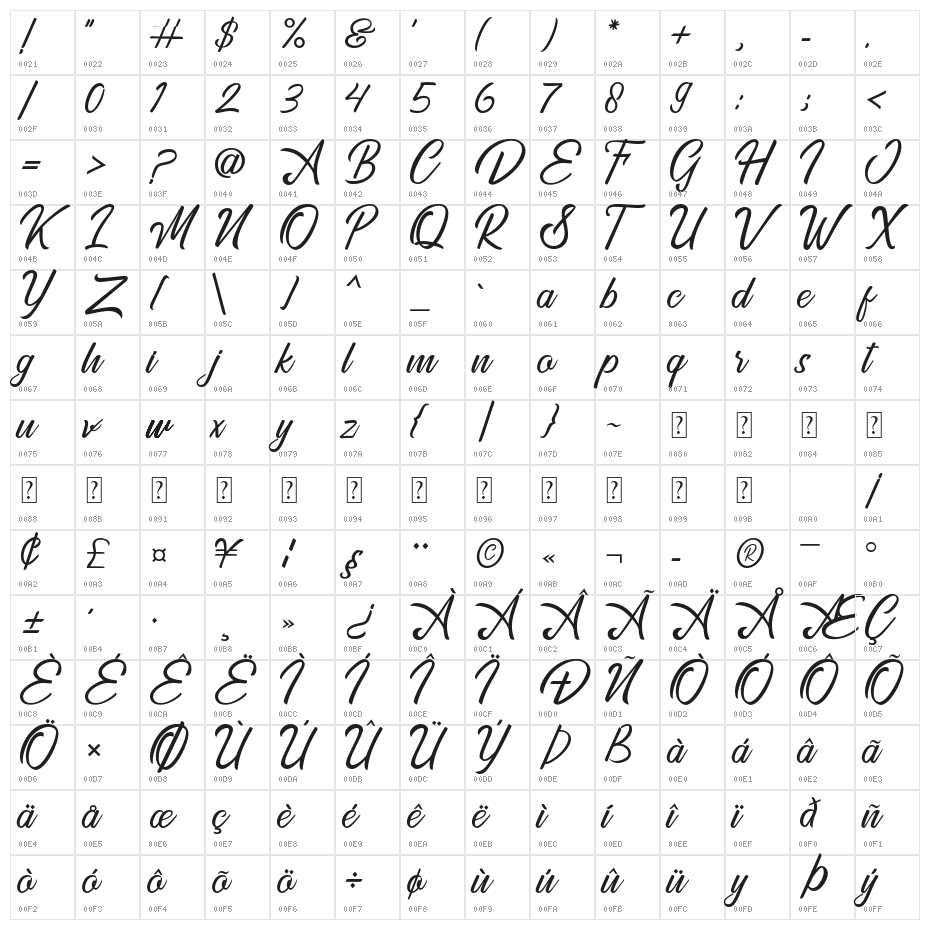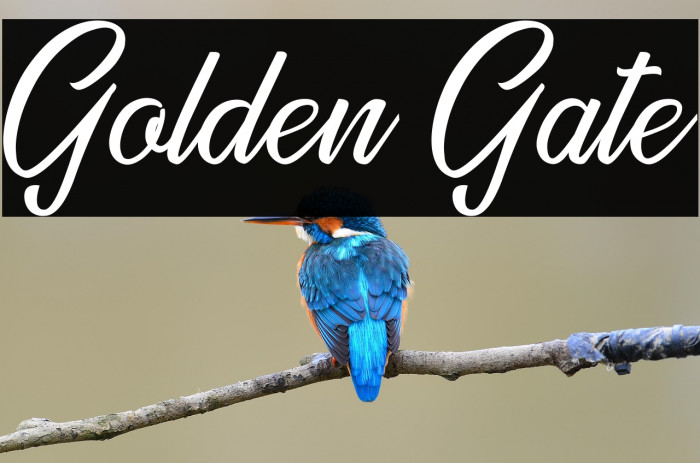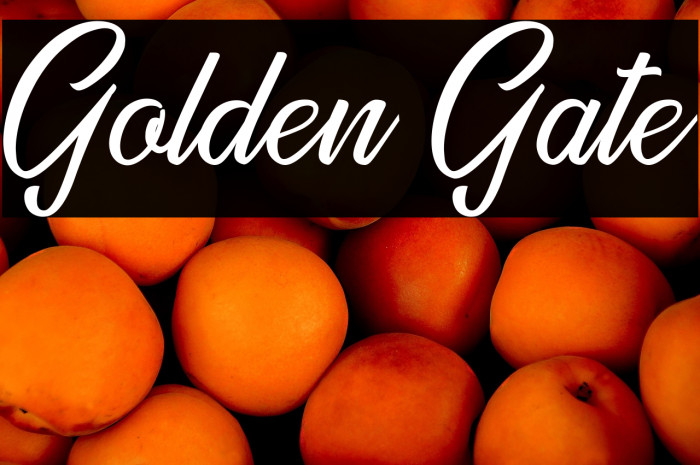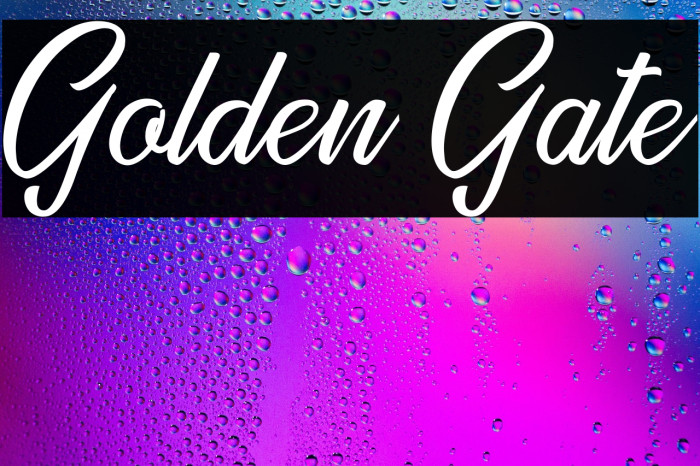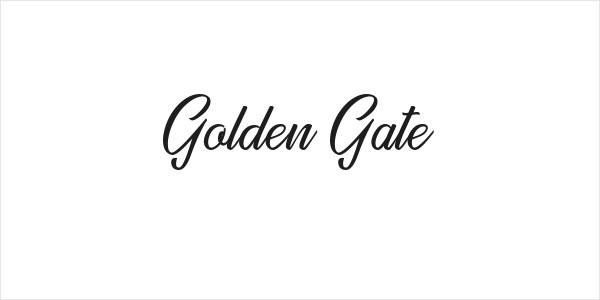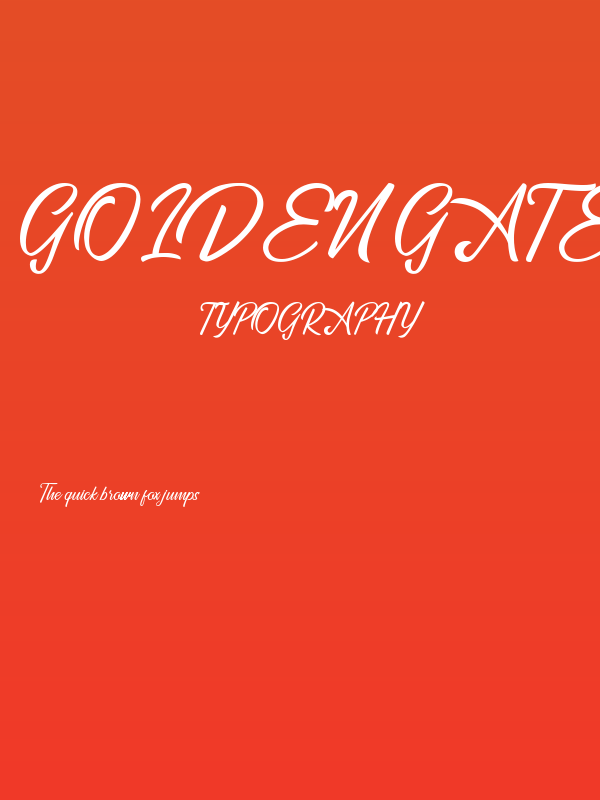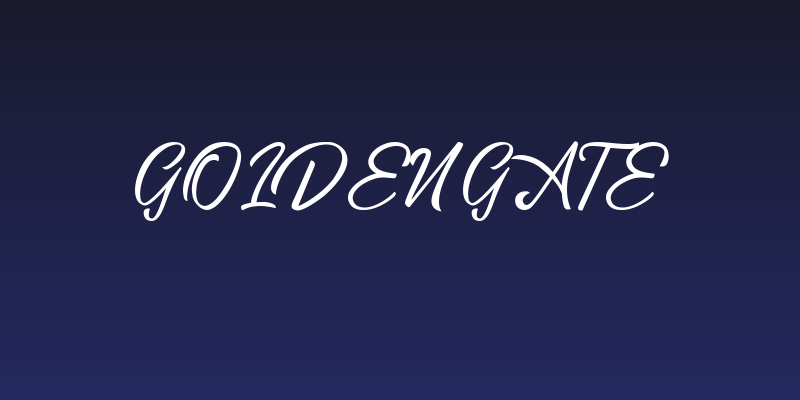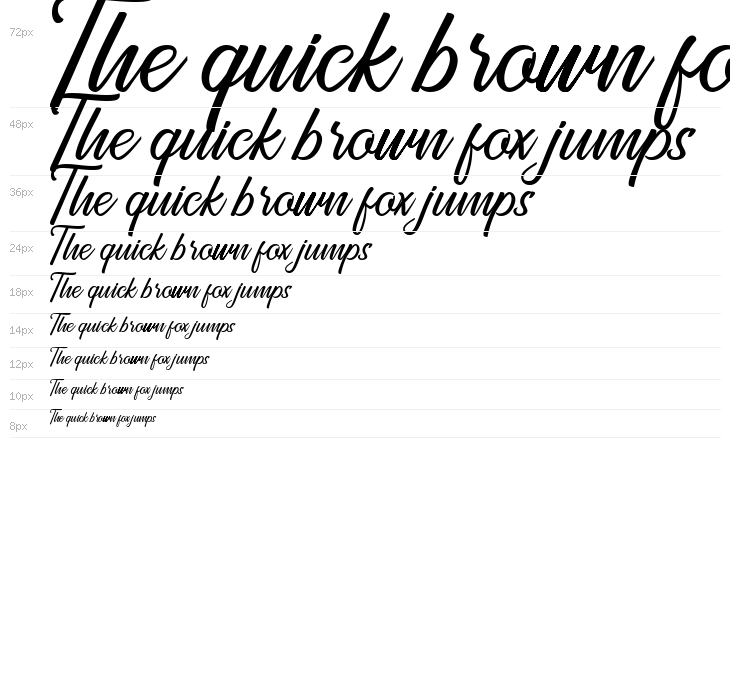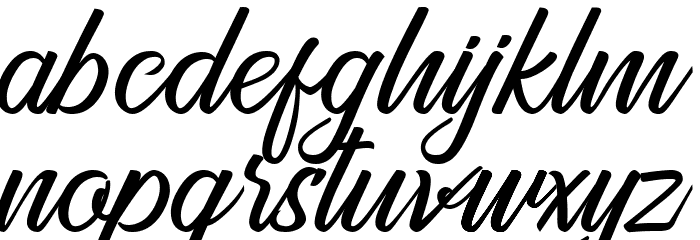
Golden Gate Font
Golden Gate Description
This font features an elegant, flowing script style that mimics the fluidity of cursive handwriting. The characters are connected, creating a seamless and continuous appearance. The uppercase letters are tall and slightly slanted, while the lowercase letters maintain a consistent height, enhancing readability. The numerals and special characters are designed to match the overall script style, with smooth curves and a harmonious flow. This font exudes a sense of sophistication and grace, making it ideal for projects that require a personal touch.
| Use Case | Logos, Invitations, Personal stationery |
| Proposed Projects | Ideal for wedding invitations, greeting cards, elegant branding, and personal stationery. |